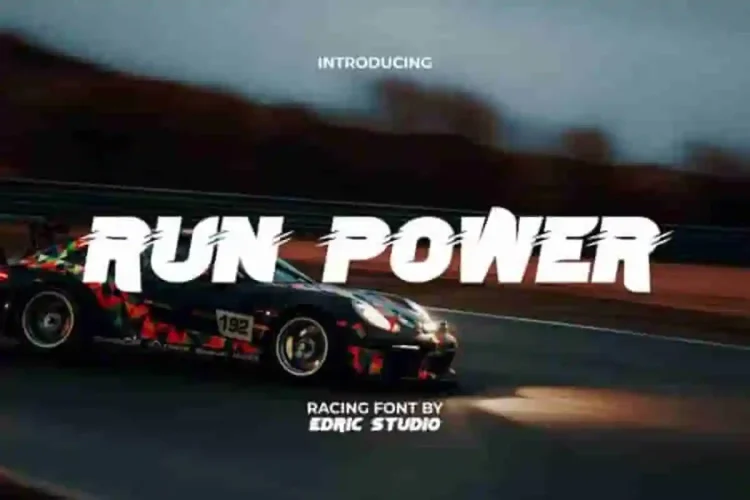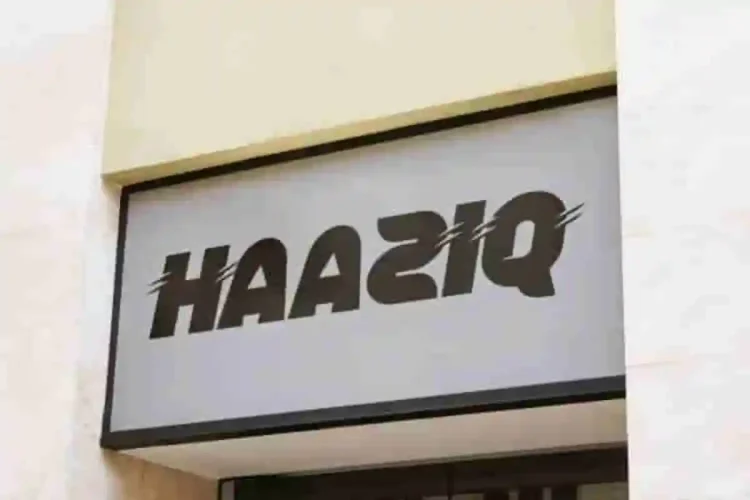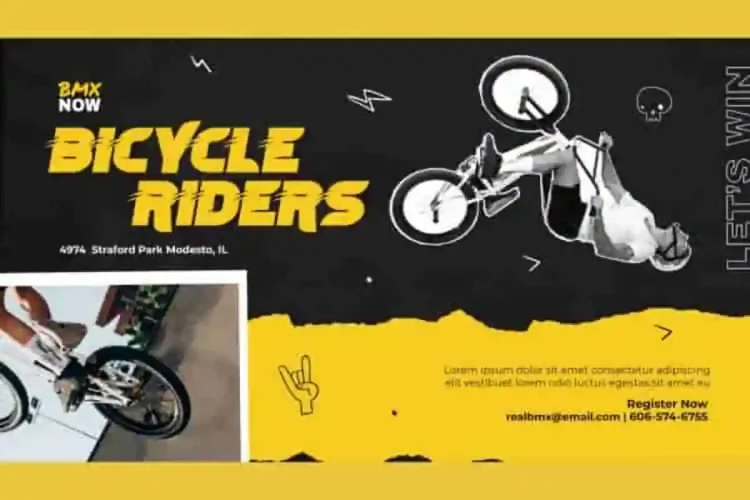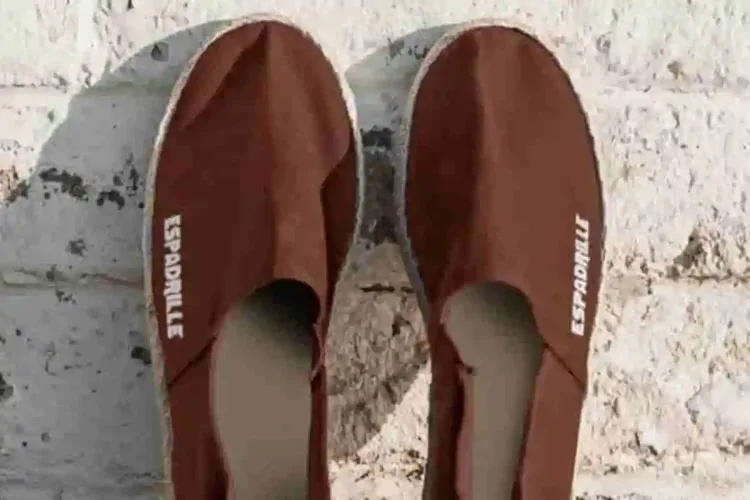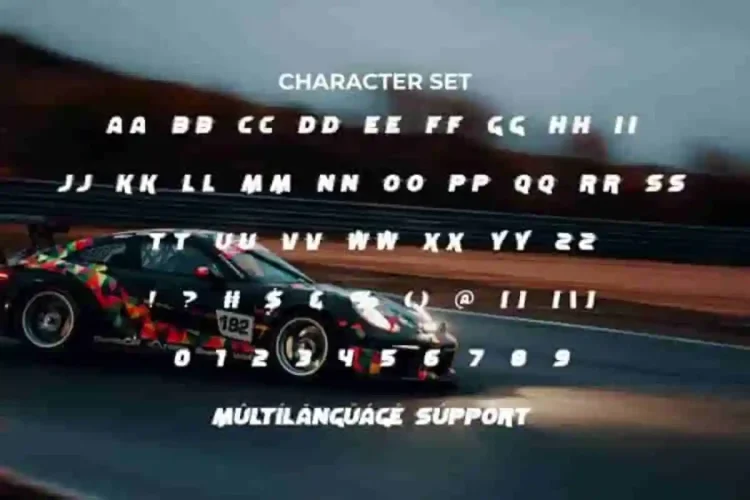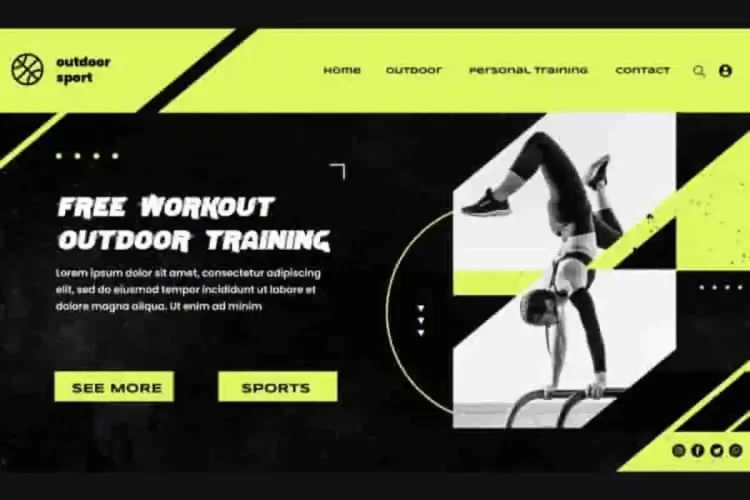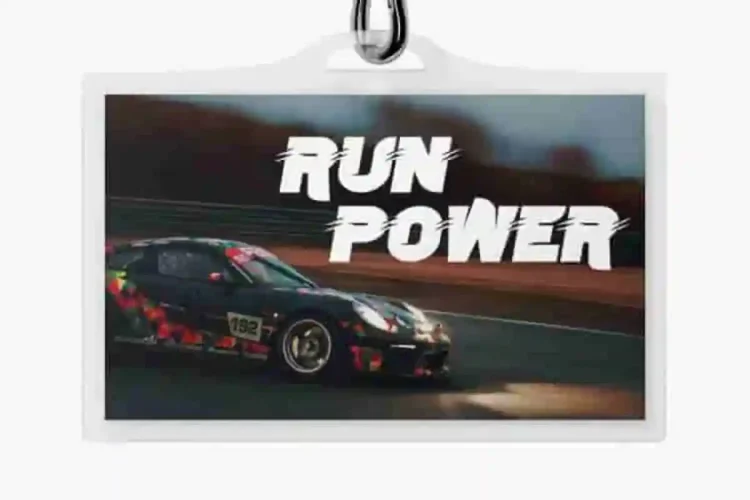
Run Power Modern Font a dynamic sporty display typeface built to capture speed, power, and adrenaline. This is perfect for creating racing sports themed designs. Inspired by racing culture, this bold and futuristic font is perfect for projects that demand energy, movement, and impact.
Run Power Modern Display Font comes with a full set of ALL CAPS for Uppercase and Lowercase letters, Number, Punctuation, and Symbol. The bold and futuristic appearance of the letters conveys the impression of racing at agile speed and evokes a sensation of movement. Its sharp edges and bold strokes evoke a sense of motion, making it the perfect choice for racing, sports, gaming, fitness, fashion, advertising, and modern digital content.
Run Power Modern Font a playful typeface with unique decoration in each character. Combine different characters for a bespoke, handcrafted feel. It’s tested to work well in the Adobe Apps (Illustrator, Adobe InDesign, Adobe Photoshop) even work on Microsoft Word. Thanks to PUA encoding, every glyph and alternate character is accessible for custom creative control.